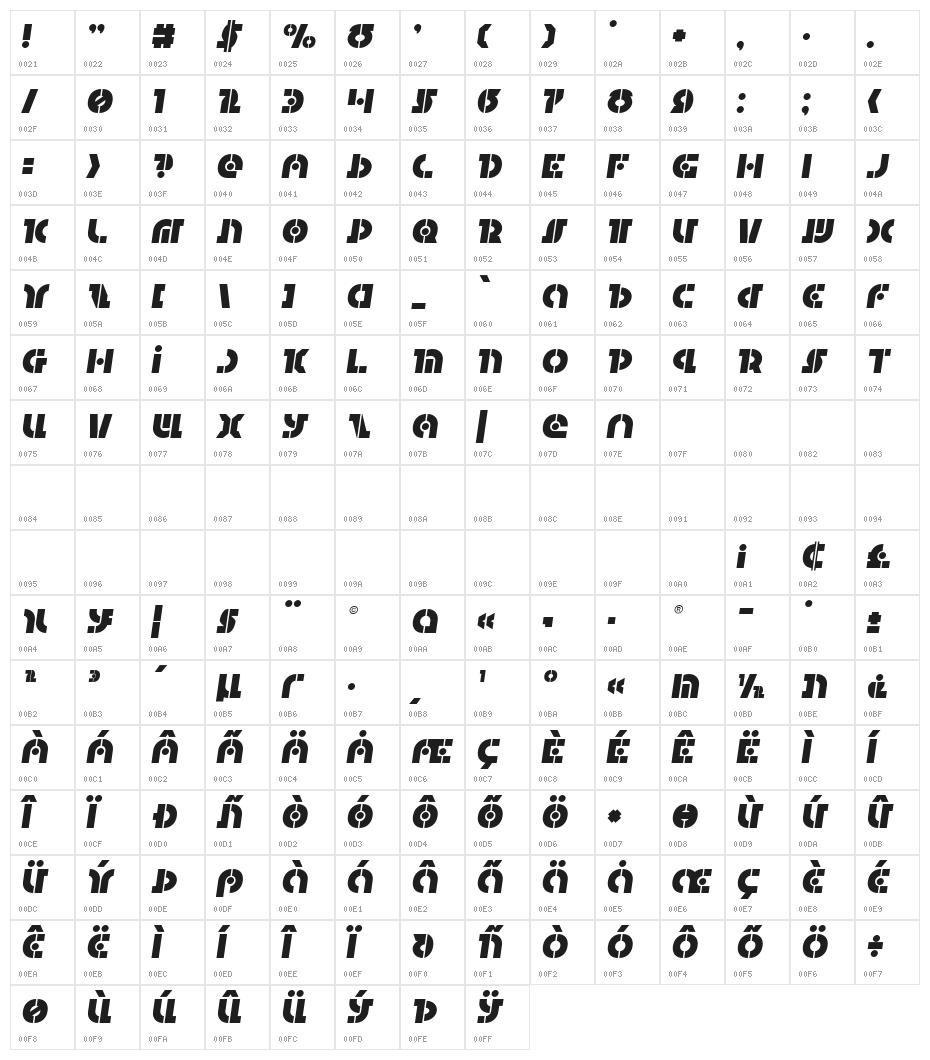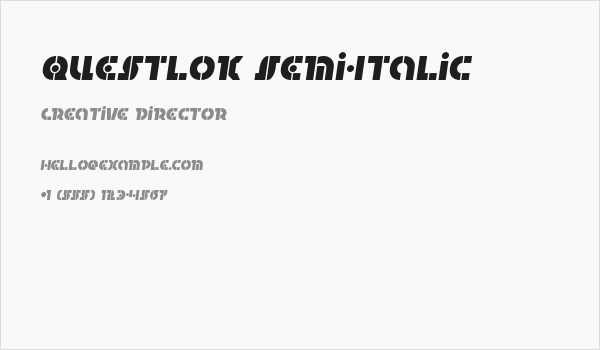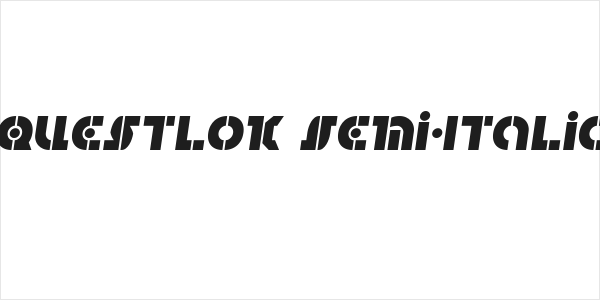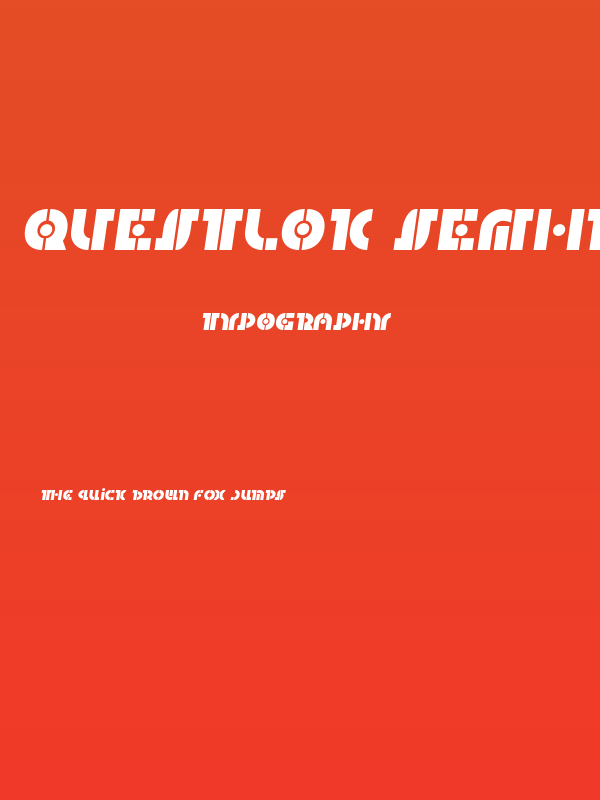
Questlok Semi-Italic Font
Questlok Semi-Italic Description
This font features a bold and geometric style with a semi-italic slant, creating a dynamic and modern appearance. The characters are constructed with thick, angular strokes and sharp edges, giving them a futuristic and industrial feel. The uppercase and lowercase letters maintain a consistent design, with unique cutouts and shapes that add visual interest. The numbers and special characters follow the same design principles, ensuring a cohesive look across all elements. The font's boldness and distinct style make it stand out, suitable for projects that require a strong visual impact.
| Proposed Projects | Ideal for branding, posters, headlines, and any design that requires a modern and impactful typeface. |